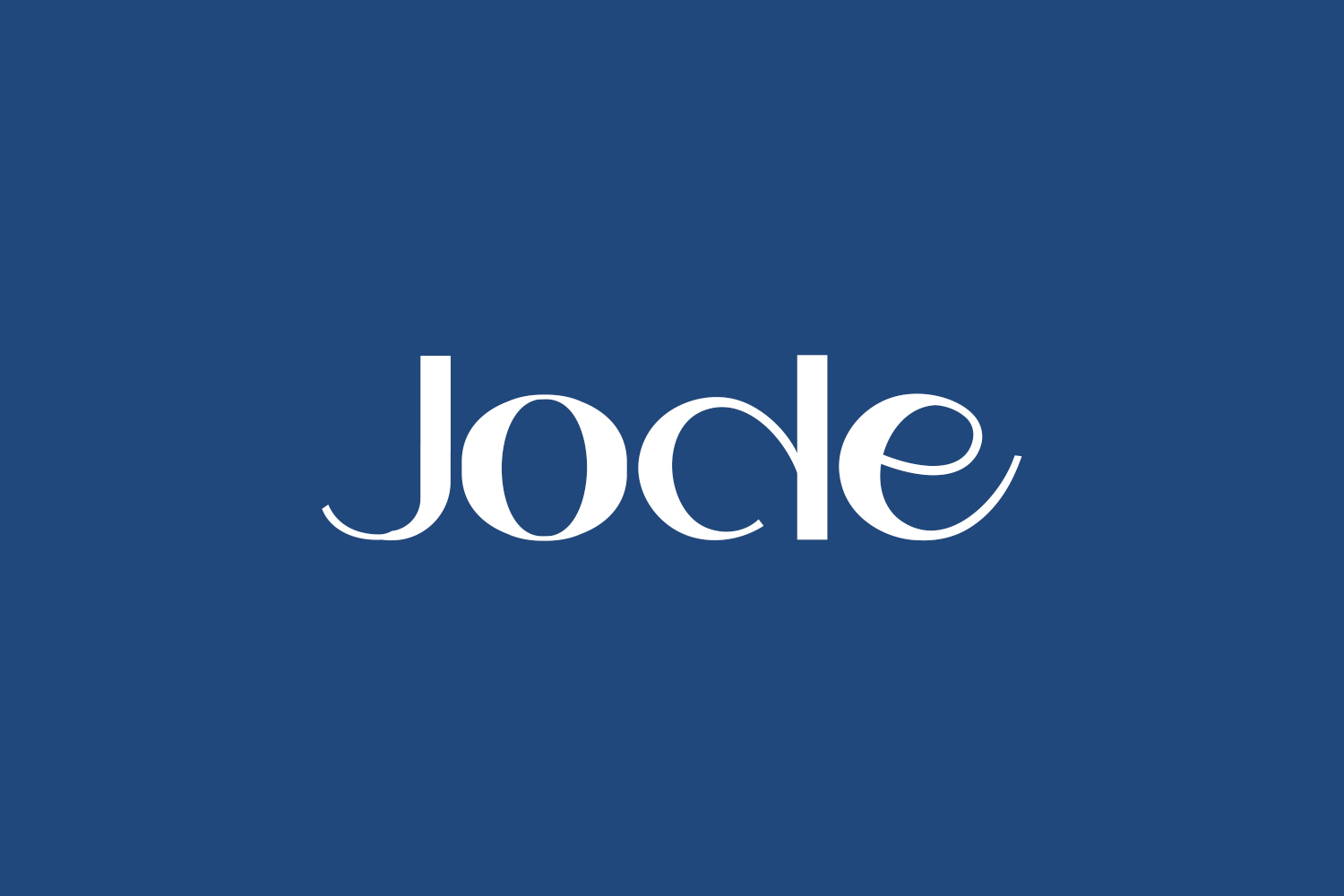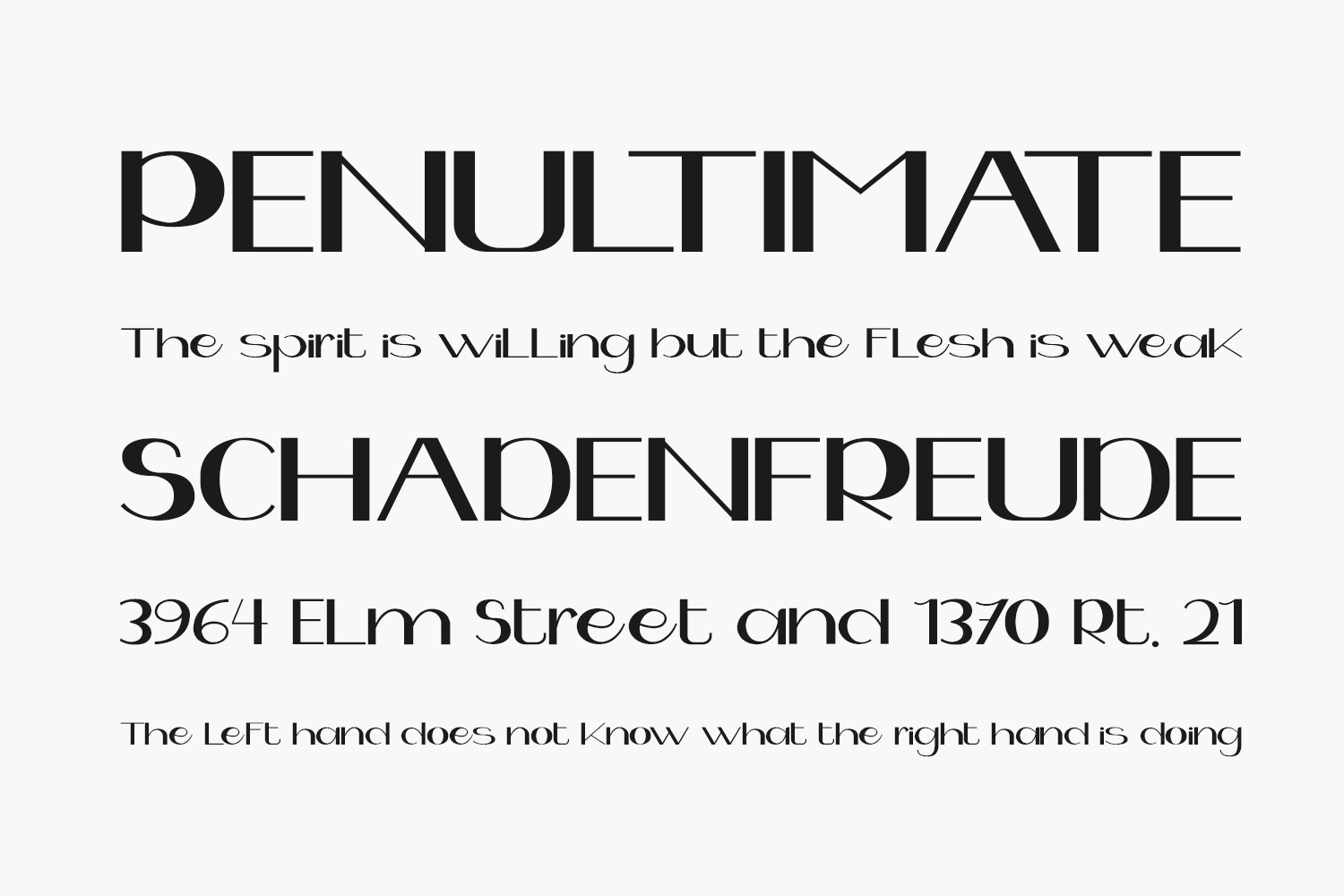
Discover Jode Free Font Family: a refined and alluring display font infused with a touch of sophistication and style. Crafted with luxury and elegance in mind, this font is tailored for projects seeking a modern and chic aesthetic. Ideal for creating upscale and feminine designs that exude charm and sophistication. Download the font for free if you need it for personal use or purchase the full version for commercial use.
Designed by PutraCetol Studio